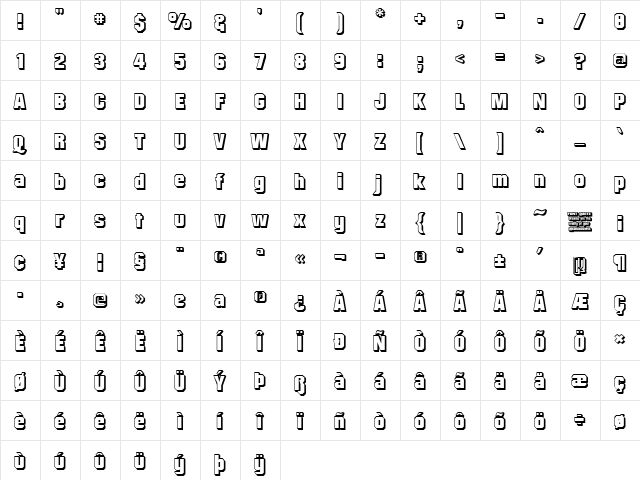
Mister Belvedere 3D Regular Free Font
Mister Belvedere 3D Regular
Design Context for Mister Belvedere 3D
Mister Belvedere 3D is a composed and adaptable typeface that performs quietly and consistently across a wide range of design contexts.
Pro Tip: Use Mister Belvedere 3D in both headline and body roles to test its range before committing to a single application.